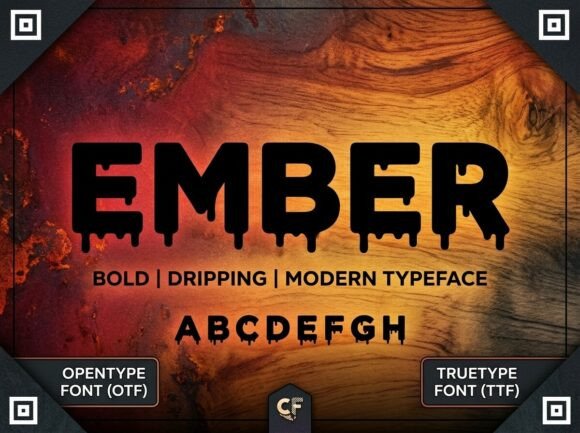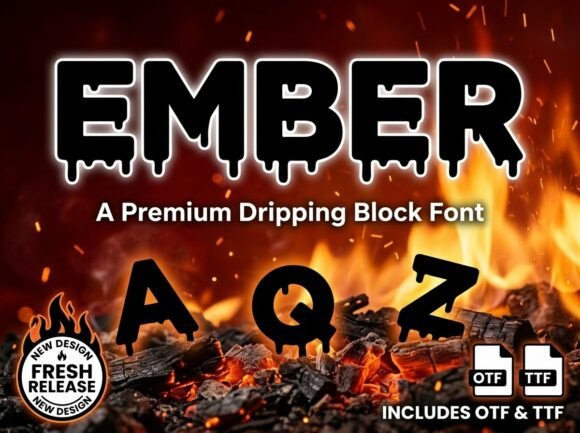
Unleash Your Creativity with Ember Font: Ignite Your Designs with a Bold-and-Blazing Spirit
Are you tired of using the same old fonts that fail to make an impact? Look no further than Ember, a high-impact display typeface that’s sure to set your designs ablaze. With its massive, solid block letterforms and rhythmic, hand-drawn drips, Ember captures the intense heat of a roaring furnace, making it the perfect choice for designers and crafters looking to add a bold-and-blazing spirit to their work.
The Inspiration Behind Ember
Ember’s design is inspired by the raw power of fire, with each character featuring a heavy structural weight that exudes confidence and strength. The font’s creator aimed to capture the dynamic, molten quality of fire, infusing each letterform with a sense of movement and energy. The result is a font that’s both visually striking and emotionally resonant, making it perfect for projects that require a bold and attention-grabbing aesthetic.
Key Features of Ember Font
So, what makes Ember font so unique? Here are some of its key features:
- Massive, solid block letterforms: Ember’s characters are large and imposing, making them perfect for headlines, titles, and other display text.
- Rhythmic, hand-drawn drips: The font’s drips add a touch of organic, hand-crafted charm to each character, giving Ember a unique and distinctive feel.
- Heavy structural weight: Ember’s bold, chunky design makes it perfect for creating eye-catching graphics and logos that demand attention.
- Powerful personality: Ember’s font is not just a collection of letters – it’s a statement of intent, a declaration of boldness and confidence.
Use Cases for Ember Font
So, what kinds of projects is Ember font best suited for? Here are some ideas to get you started:
- Independent industrial branding: Ember’s bold, rugged design makes it perfect for industrial brands that want to project a strong, no-nonsense image.
- Extreme sports logos: The font’s dynamic, high-energy feel makes it a natural fit for extreme sports brands that want to convey a sense of excitement and adventure.
- Fire-themed culinary identities: Ember’s fiery personality makes it perfect for restaurants, food trucks, and other culinary businesses that want to evoke the warmth and energy of a crackling flame.
- High-impact social media headers: Ember’s bold, attention-grabbing design makes it perfect for social media headers that need to stand out in a crowded online landscape.
Tips for Using Ember Font Effectively
Here are some tips for getting the most out of Ember font:
- Use it sparingly: Ember’s bold design can be overwhelming if overused. Use it sparingly to create visual impact and emphasize key messages.
- Experiment with color: Ember’s fiery personality lends itself perfectly to warm, vibrant colors. Experiment with different hues to find the perfect match for your brand.
- Mix it with other fonts: Ember’s bold design can be paired with other fonts to create visual interest and contrast. Try pairing it with a clean, sans-serif font for a striking combination.
Ember font is a game-changer for designers and crafters looking to add a bold-and-blazing spirit to their work. With its massive, solid block letterforms, rhythmic hand-drawn drips, and heavy structural weight, Ember is the perfect choice for projects that require a high-impact aesthetic. Whether you’re working on industrial branding, extreme sports logos, or social media headers, Ember font is sure to ignite your creative fire and help you achieve your design goals.